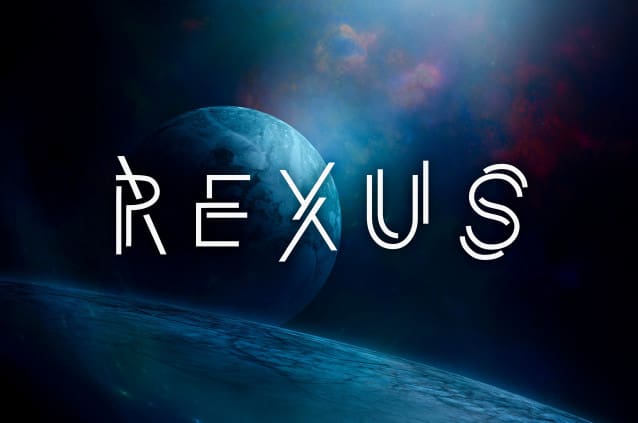
Rexus Futuristic Font
Rexus Futuristic Font, a futuristic font, inspired by space, minimalism and general relativity. Consists of uppercase, lowercase, numbers, punctuation, special characters and Greek letters. For ideal results, mix uppercase and lowercase together.